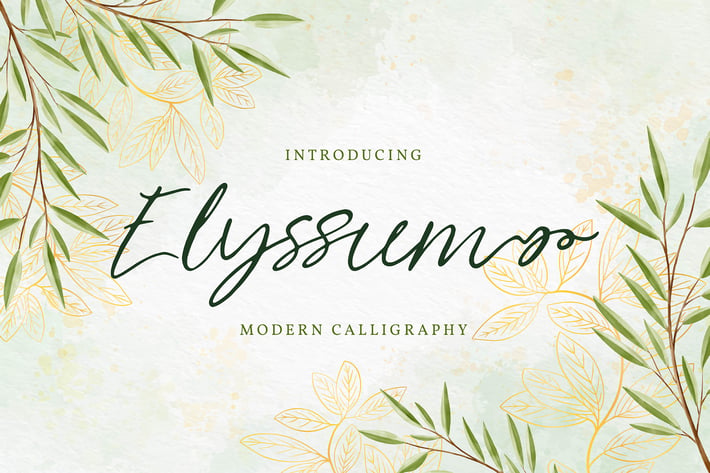
Elyssum | Modern Calligraphy Font
Elyssum | Modern Calligraphy Font with a calligraphy style, So beautiful on invitation like greeting cards, branding materials, business cards, quotes, posters, and more!